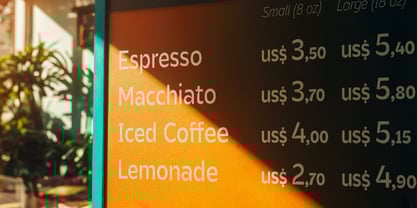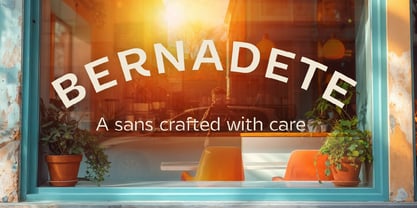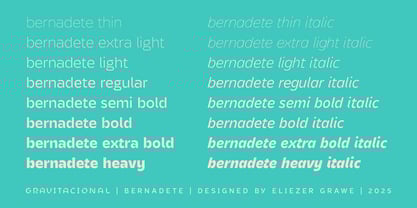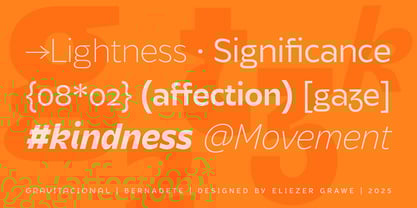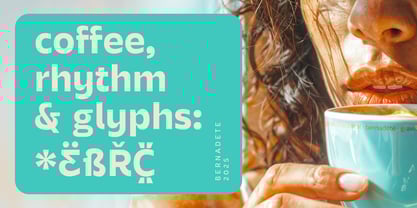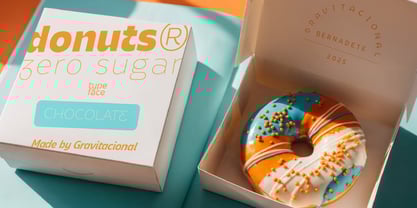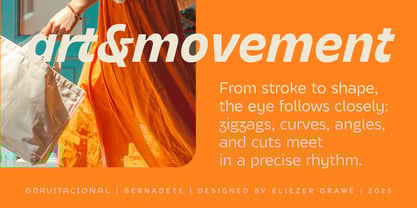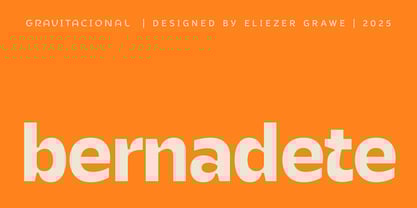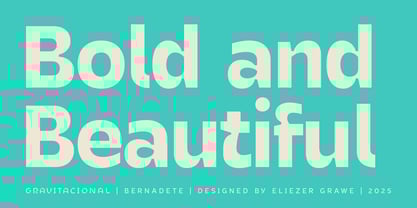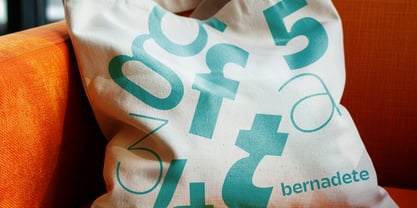
Bernadete
The Bernadete Font Family was designed by Eliezer Grawe and published by Gravitacional. Bernadete contains 17 styles and family package options. More about this family
Bernadete brings warmth to sans serif typography, striking a balance between precision and human touch. Built on the principles of humanist sans serifs, Bernadete draws inspiration from the proportions of handwriting; its large x-height and open apertures keep it clear at small sizes. Its unique personality is evident in the details: the gentle curve of the 'a', the graceful arch of the 'e', and the subtle sway of the 's', complemented by visible and deliberate ink traps. The 'z' and 'y' feature handwritten-inspired gestures that soften the overall structure, adding a distinctly human element, while flat terminals and controlled spacing ensure legibility and stability. This harmonious balance allows Bernadete to excel in various contexts, including branding, packaging, editorial design, wayfinding, and digital interfaces. It is clean enough for systematic use yet distinctive enough to leave a lasting impression. The font family includes a comprehensive variable font that offers control over weight and style, alongside a static set ranging from Thin to Heavy, complete with matching italics: 16 styles and over 600 glyphs, supporting 220 languages. For those seeking clarity infused with identity, Bernadete is a typeface that maintains precision without sacrificing warmth.